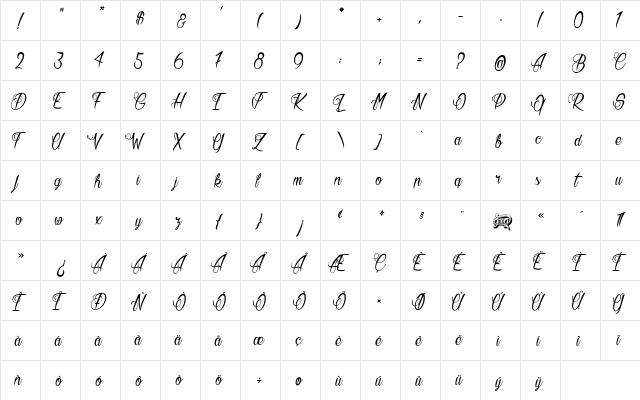
Butter Kings Regular
| Foundry | dcoxy Medina Gregory |
| Designer | dcoxy Medina Gregory |
Design Context for Butter Kings Typeface
Butter Kings is a composed and adaptable typeface that performs quietly and consistently across a wide range of design contexts.